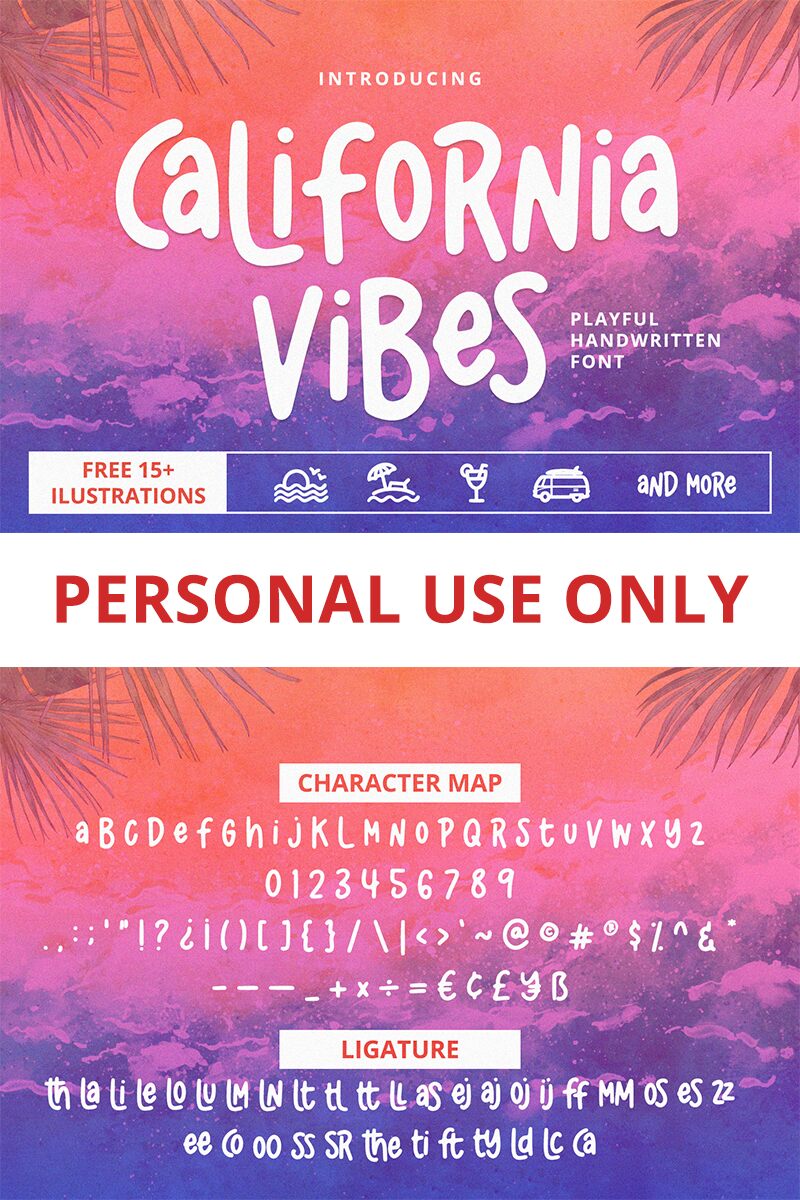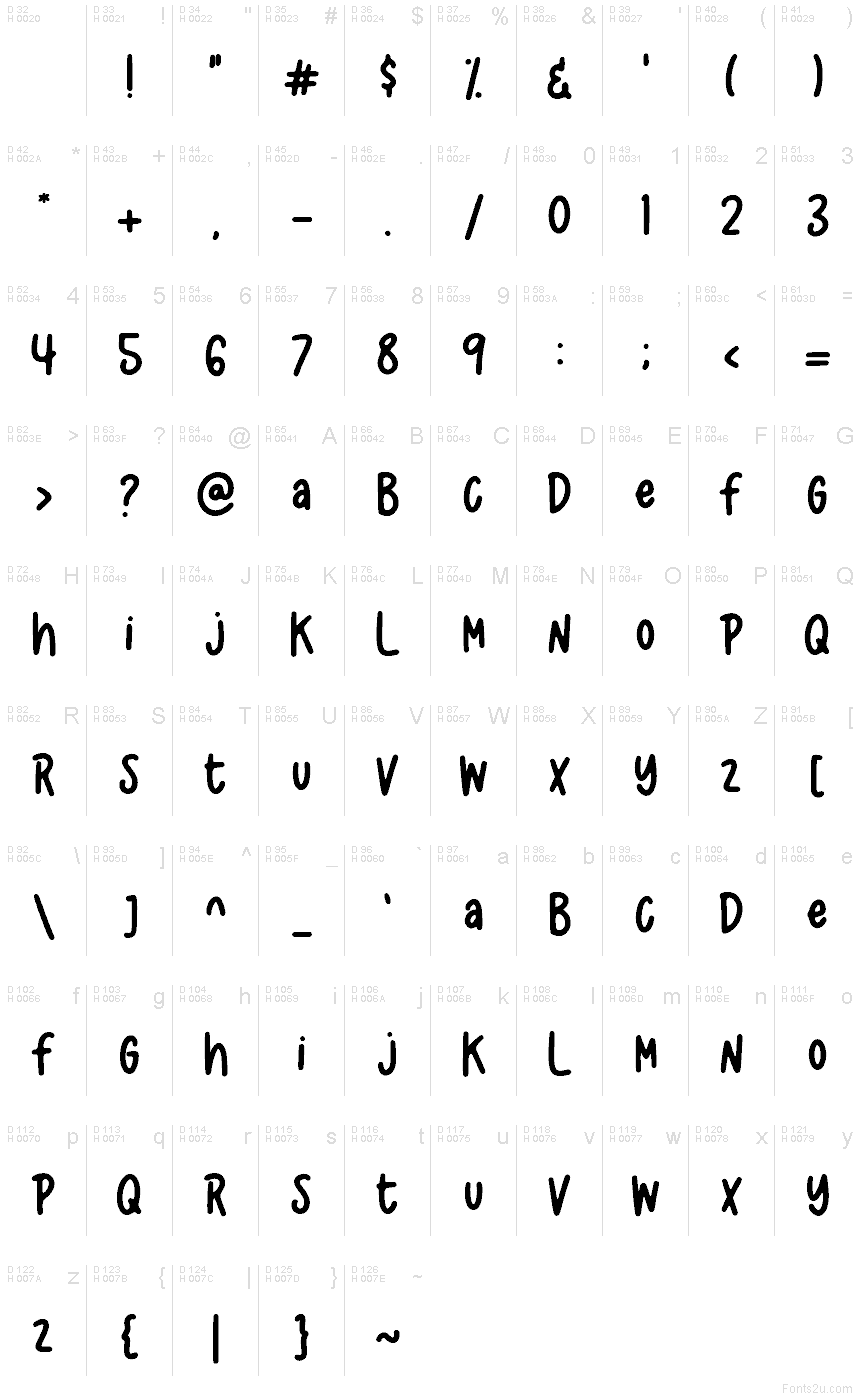
California Vibes font by Alpaprana Studio is a casual, modern, and expressive free handwritten font. Its condensed characters are relaxed in their appearance and playful within the lines which makes them approachable and youthful. These display qualities invite readers in rather than force words upon them in a refined yet trendy manner.
Design product packages for your food boxes, juice cans, or chocolate bars or share home décor projects both online and printed. California Vibes even offers some fresh designs for app/web design, ads including Google ads, branding designs like logotypes that need an inviting typography style, inspirational quotes posted on social media platforms like Instagram and Twitter, front store signs and for shop interior design elements.